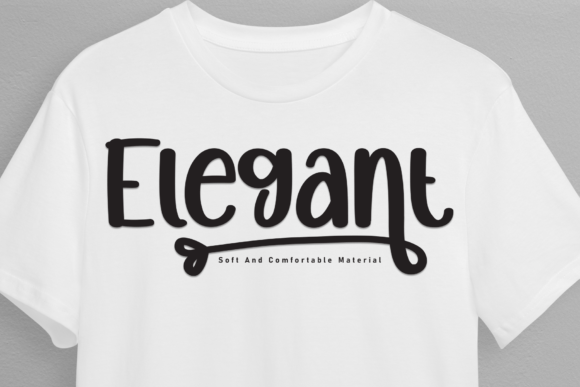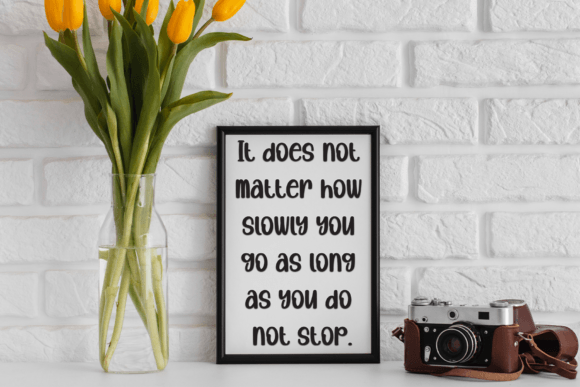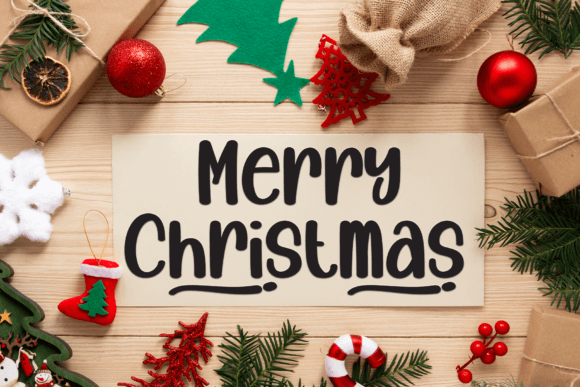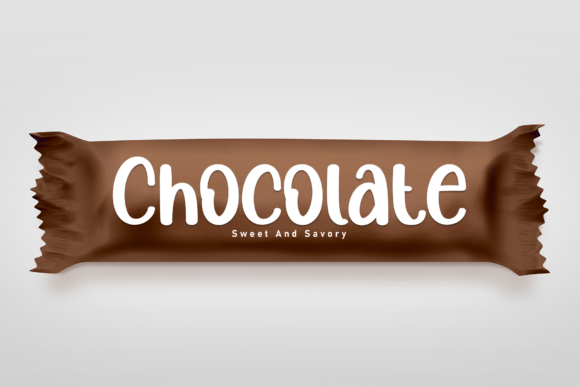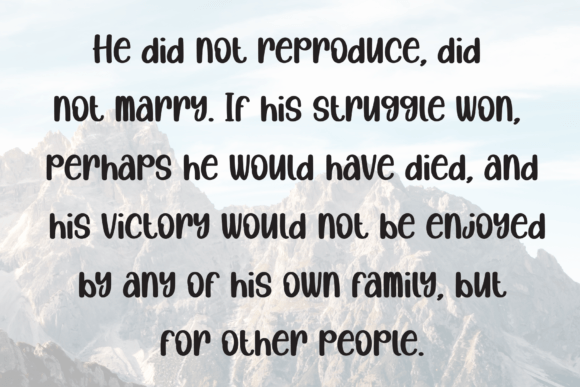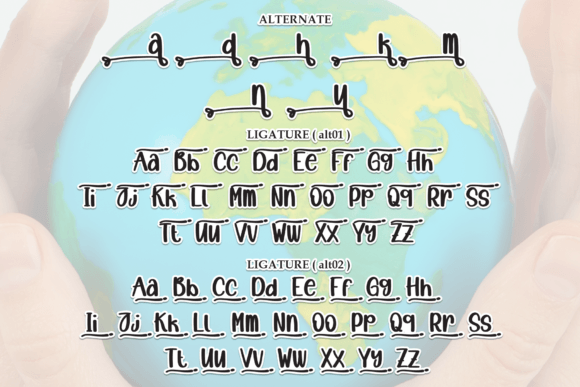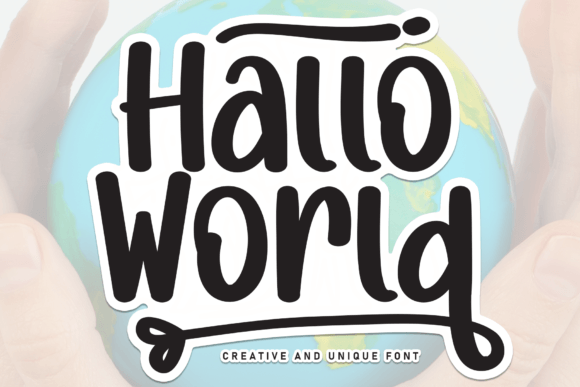
Hallo World Font: A Timeless Handwritten Font for Stunning Designs
Are you a designer or crafter looking for a font that can add a personal touch to your creations? Look no further than the Hallo World Font, a lovely and timeless handwritten font that is perfect for creating eye-catching logos, branding, and quotes.
The Unique Charm of Hallo World Font
Hallo World Font is a beautifully crafted font that boasts a unique and beautiful touch in every letter. The font’s handwritten style gives it a warm and inviting feel, making it perfect for designs that require a personal and human touch. Whether you’re creating a logo, branding materials, or quotes, Hallo World Font is sure to make your design come alive.
Characteristics of Hallo World Font
- Handwritten style: Hallo World Font has a beautiful handwritten style that gives it a unique and personal touch.
- Unique lettering: Every letter in the font has a unique and beautiful touch, making it perfect for creating eye-catching designs.
- Timeless appeal: The font’s classic handwritten style ensures that it will remain timeless and relevant for years to come.
- Versatile: Hallo World Font can be used for a wide range of design projects, from logos and branding to quotes and more.
Why Choose Hallo World Font?
So why choose Hallo World Font for your design projects? Here are just a few reasons:
- Stand out from the crowd: With its unique and beautiful lettering, Hallo World Font is sure to make your design stand out from the crowd.
- Easy to read: Despite its handwritten style, Hallo World Font is easy to read and understand, making it perfect for use in quotes and other text-based designs.
- Customizable: The font can be easily customized to fit your design needs, allowing you to create a unique and personalized look.
- Support for multiple languages: Hallo World Font supports multiple languages, making it a great choice for designers who work with international clients.
How to Use Hallo World Font
Using Hallo World Font in your design projects is easy. Here are a few tips to get you started:
- Pair it with other fonts: Hallo World Font can be paired with other fonts to create a unique and interesting look.
- Experiment with colors: The font looks great in a variety of colors, so don’t be afraid to experiment and find the perfect hue for your design.
- Use it for emphasis: Hallo World Font can be used to add emphasis to certain words or phrases in your design.
Design Ideas Using Hallo World Font
- Logos: Hallo World Font is perfect for creating eye-catching logos that require a personal touch.
- Branding materials: The font can be used to create a consistent look across all of your branding materials, from business cards to brochures.
- Quotes: Hallo World Font is a great choice for creating inspirational quotes and posters.
- Social media graphics: The font can be used to create eye-catching social media graphics that are sure to grab the attention of your followers.
In conclusion, Hallo World Font is a lovely and timeless handwritten font that is perfect for designers and crafters looking to add a personal touch to their creations. With its unique and beautiful lettering, the font is sure to make your design come alive. Whether you’re creating logos, branding materials, or quotes, Hallo World Font is a great choice.